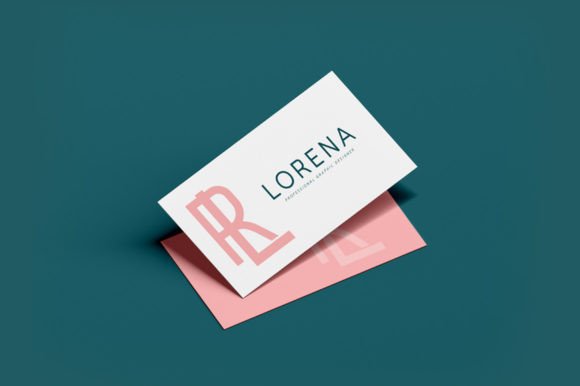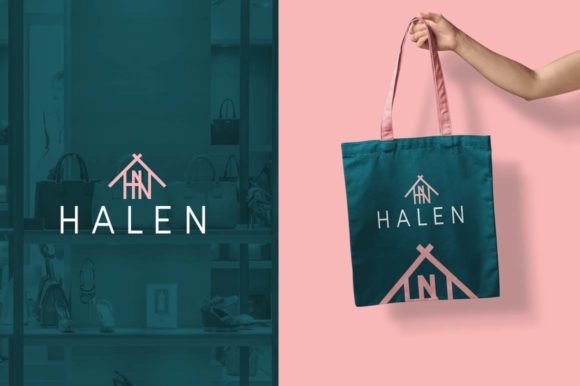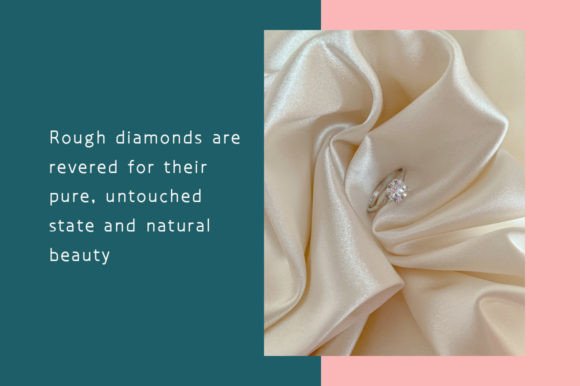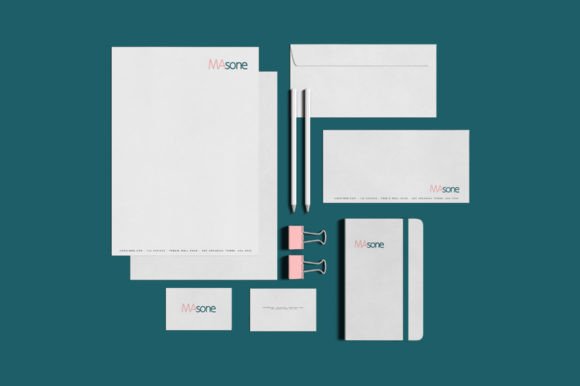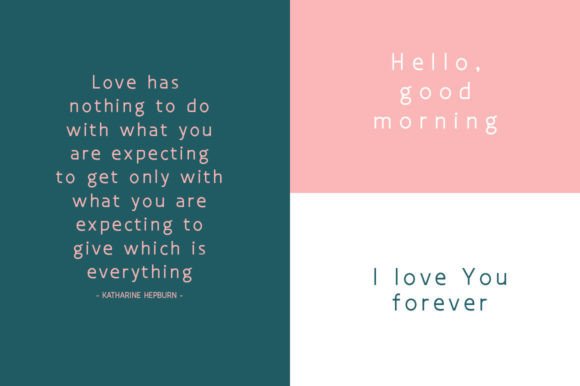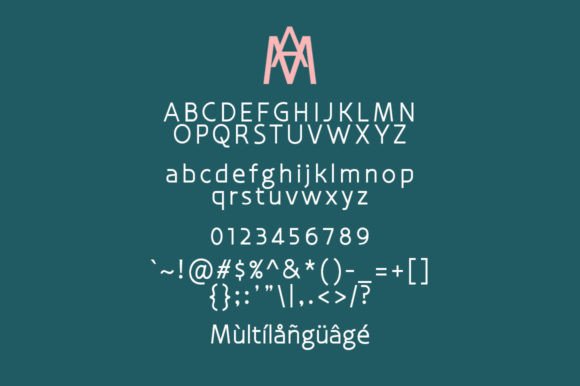
Introduction to Masone Font
Remember that moment when you’re working on a creative project and you can’t find the right font to make it pop? You’ve tried countless options, but nothing seems to fit the vibe you’re going for. Well, we’re here to tell you that your search is over – welcome to the world of Masone Font!
This elegant sans serif typeface is a game-changer for designers, and we can’t wait to share its features with you. From logos to branding, greeting cards to posters, Masone Font is the perfect design resource to elevate your projects to the next level. Whether you’re working on a personal or professional project, this high-quality font is sure to impress. And the best part? It’s available for free download, complete with a transparent background for maximum flexibility.
So, what are you waiting for? Dive into the world of Masone Font and discover a whole new level of design possibilities.
Key Features of Masone Font
- High-quality design resource with a transparent background, ideal for creative projects.
- Includes a range of characters and glyphs, making it suitable for both personal and commercial use.
- Unique characteristics, such as its modern and minimalist style, set it apart from other fonts in its class.
- Designed to be versatile and adaptable, making it a great addition to any design project.
Honest Review: Masone Font
As a designer, I’m always on the lookout for high-quality fonts to elevate my creative projects. Recently, I had the chance to try out the Masone Font, and I must say, it’s been a pleasant surprise.
- ✨ Beautifully crafted letters with a unique, elegant feel.
- ✨ Highly legible, making it perfect for both print and digital design.
- ⚠️ Limited font sizes and styles, which may not be suitable for complex design projects.
- ⚠️ No support for right-to-left languages, which could be a drawback for international designers.
Overall, I’m impressed with the Masone Font. While it may not be the most comprehensive font library, its unique style and high quality make it a valuable design resource. If you’re looking for a font to add some sophistication to your creative project, I’d definitely recommend giving Masone Font a try.
Common Use Cases for Masone Font
The Masone Font is ideal for a variety of creative projects, including logos, brochures, and presentations. Its high-quality design and transparent background make it a versatile and useful design resource.